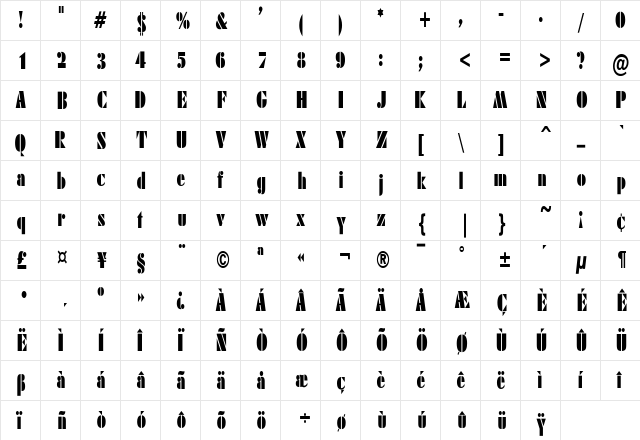
ArmyBlackCondensed-Plain Regular
Design Context for ArmyBlackCondensed-Plain Typeface
ArmyBlackCondensed-Plain draws on military and industrial lettering traditions, with forms that communicate strength and precision. Its narrow stance lets it pack a punch even in space-constrained designs.
Designed for tactical branding, military-inspired apparel, action game UI, and utility-focused signage.
Pro Tip: Use ArmyBlackCondensed-Plain at medium-to-large sizes where its utilitarian structure can be appreciated — the character detail gets lost at small sizes.